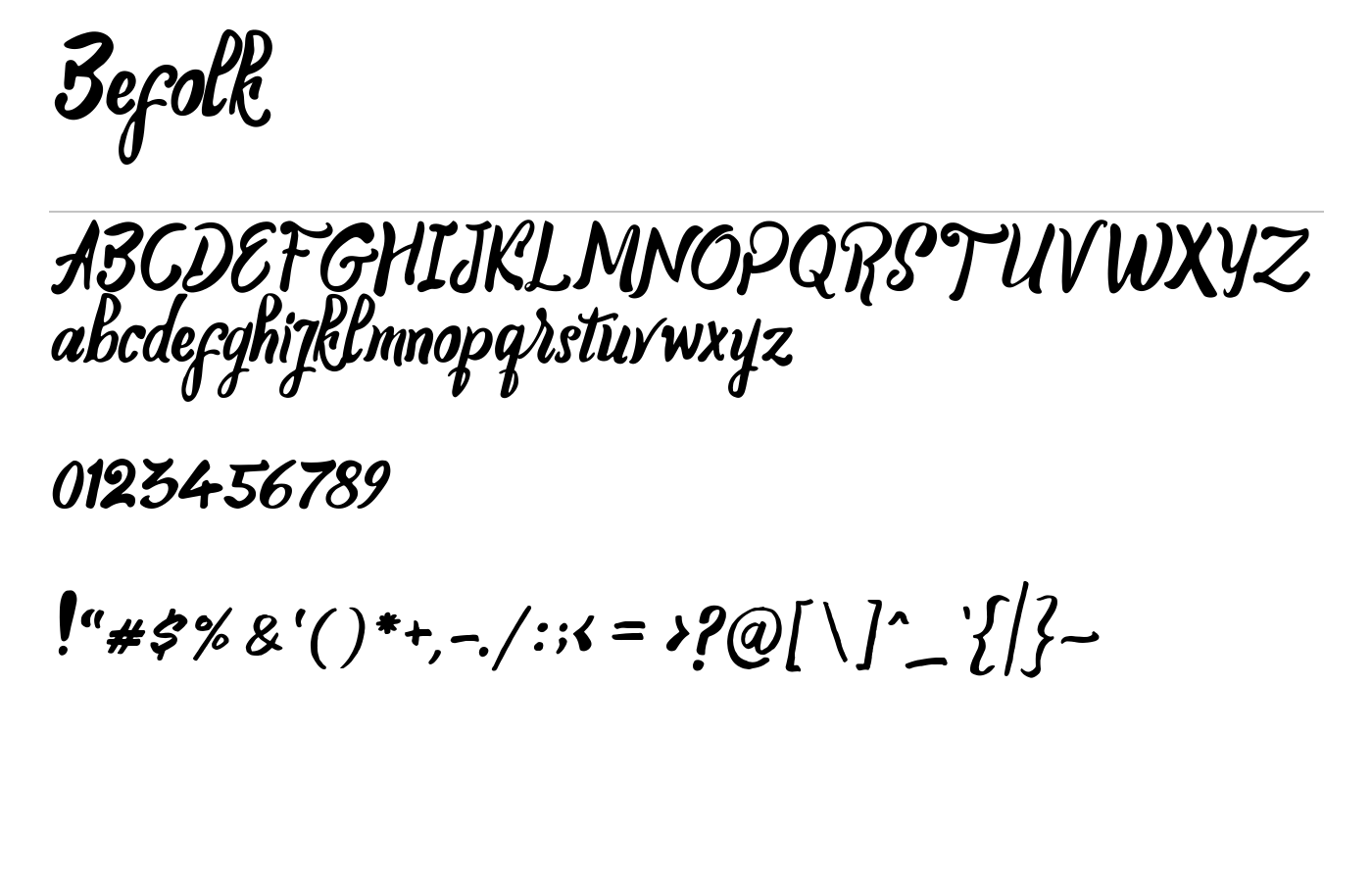
Befolk is a lively script font with a bold, brush-like texture that gives it a hand-painted, artistic feel. Its fluid, slightly condensed letterforms and varying stroke thicknesses create a dynamic and friendly personality, making it ideal for creative branding, posters, and informal editorial use where a personal, expressive touch is desired. This font works best in headlines and display settings, adding charm and energy to designs that need a playful yet polished look.
Befolk Font
About Befolk Font